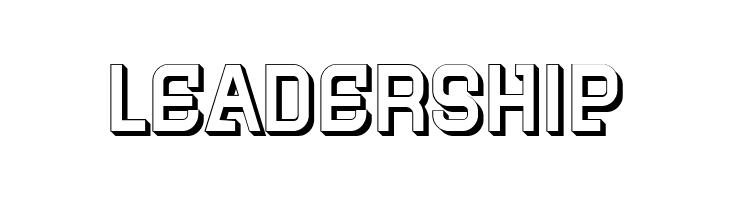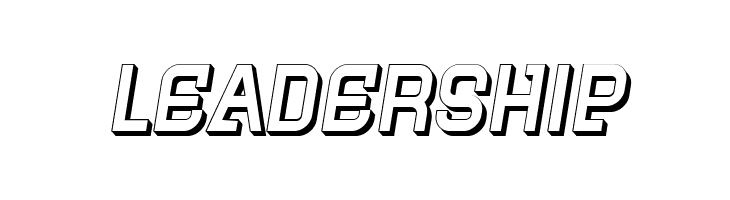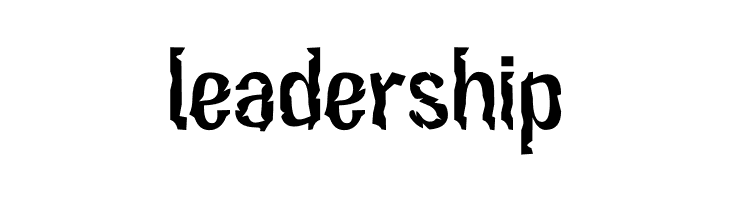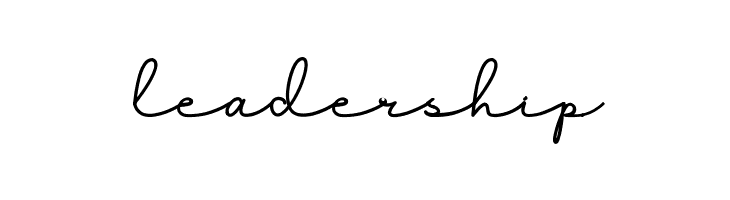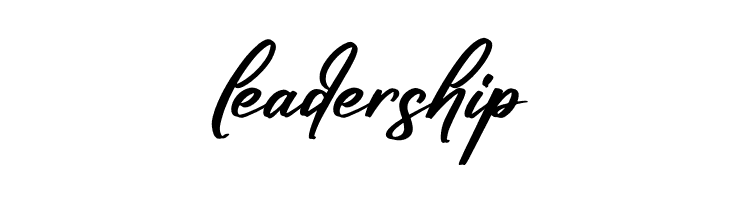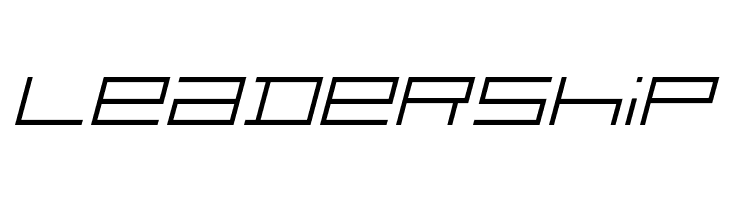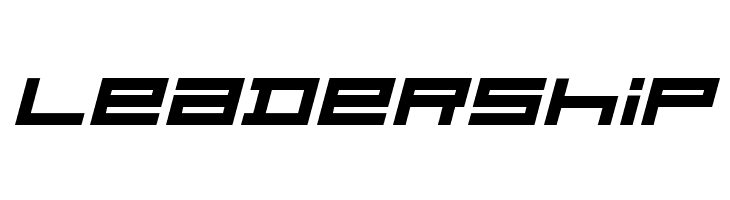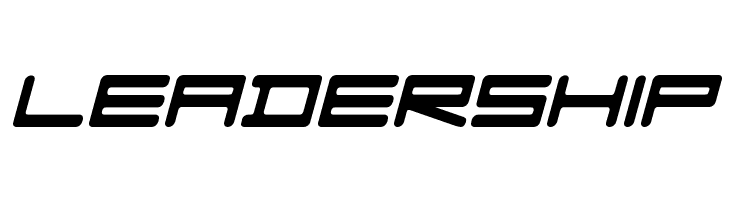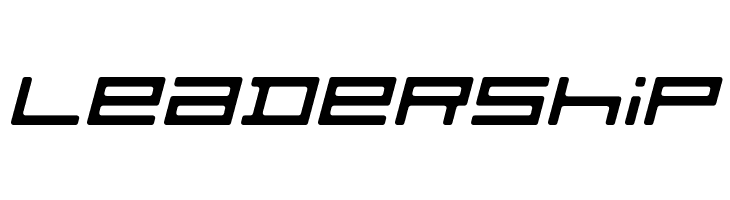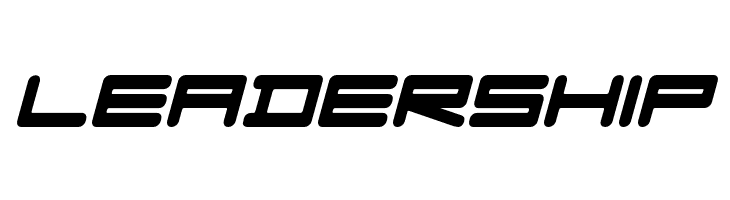
A modern, elegant script font with flowing, cursive letterforms and an italic style.
A bold, outlined font with a futuristic and dynamic style.
A bold, italicized font with a 3D shadow effect and futuristic style.
A futuristic, geometric font with clean lines and uniform stroke width.
A bold, geometric font with a three-dimensional effect.
A textured, jagged font with an organic, dynamic appearance.
A playful, bold font with a fuzzy texture and lively appearance.
A bold, distressed font with a vintage, rugged appearance.
A lively handwritten font with fluid, cursive strokes and a playful elegance.
A modern, rounded sans-serif font with uniform strokes and a friendly appearance.
A modern, geometric sans-serif font with clean lines and excellent readability.
A modern sans-serif font with geometric shapes and uniform strokes.
An eerie, nature-inspired font with branch-like details.
A bold, oblique font with a futuristic and dynamic style.
A futuristic, oblique font with rounded edges and a sleek, modern design.
A futuristic, angular, and oblique font with a sleek, modern design.
A sleek, futuristic font with geometric and dynamic design.
A futuristic, geometric font with angular shapes and clean lines.
A futuristic, rounded font with geometric shapes and smooth curves.
A futuristic, geometric font with thin, angular strokes and consistent height.
A sleek, futuristic oblique font with thin, elongated characters and sharp angles.
A futuristic, oblique font with bold, geometric characters and rounded edges.
A futuristic, geometric font with bold, rounded edges and consistent stroke width.
A futuristic, geometric font with rounded edges and uniform line thickness.
A sleek, futuristic oblique font with a modern, high-tech aesthetic.